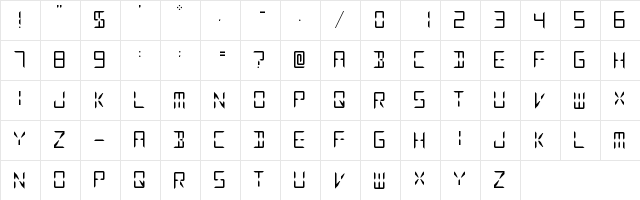
Digitize Regular
| Designer | Chris Burgess |
Design Context for Digitize Typeface
Digitize has a distinctly futuristic character, with geometric precision and clean angles that feel at home in technology, gaming, and sci-fi contexts.
Pro Tip: Try Digitize with generous letter-spacing in UI labels and navigation — the geometric forms benefit from room to breathe.